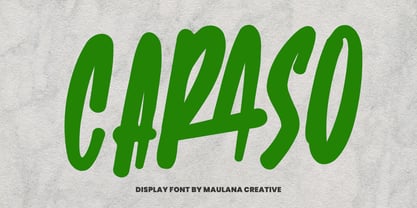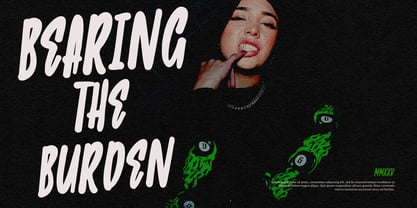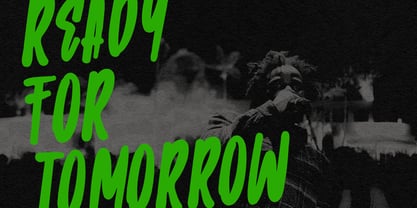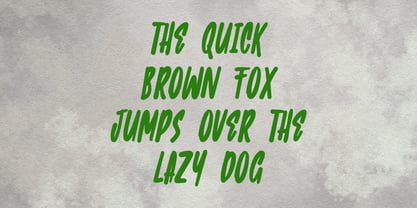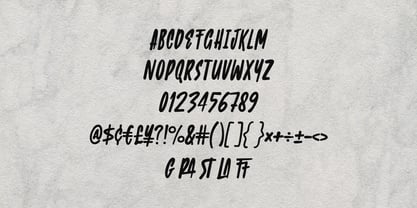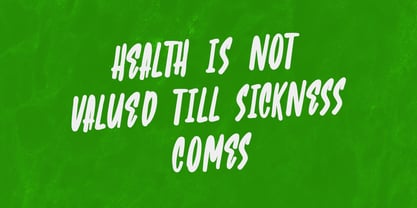
MC Caraso
by Maulana Creative
The MC Caraso Font Family was designed by Gilang Maulana and published by Maulana Creative. MC Caraso contains 1 styles. More about this family
Caraso is a bold and energetic display font designed to bring attitude, confidence, and personality to your creative projects. With its hand-brushed strokes, dynamic flow, and modern street-style character, this font is perfect for headlines, branding, music, and social media graphics. Its unique design blends urban vibes with artistic flair, making your text stand out with a bold statement.
Caraso also supports multilingual characters, numbers, punctuation, and special ligatures, ensuring versatility for global use. Whether you’re creating a motivational quote, sports branding, or promotional campaign, Caraso delivers power and creativity in every letter.
Bring your designs to life with Caraso – the font that speaks loud, bold, and stylish.